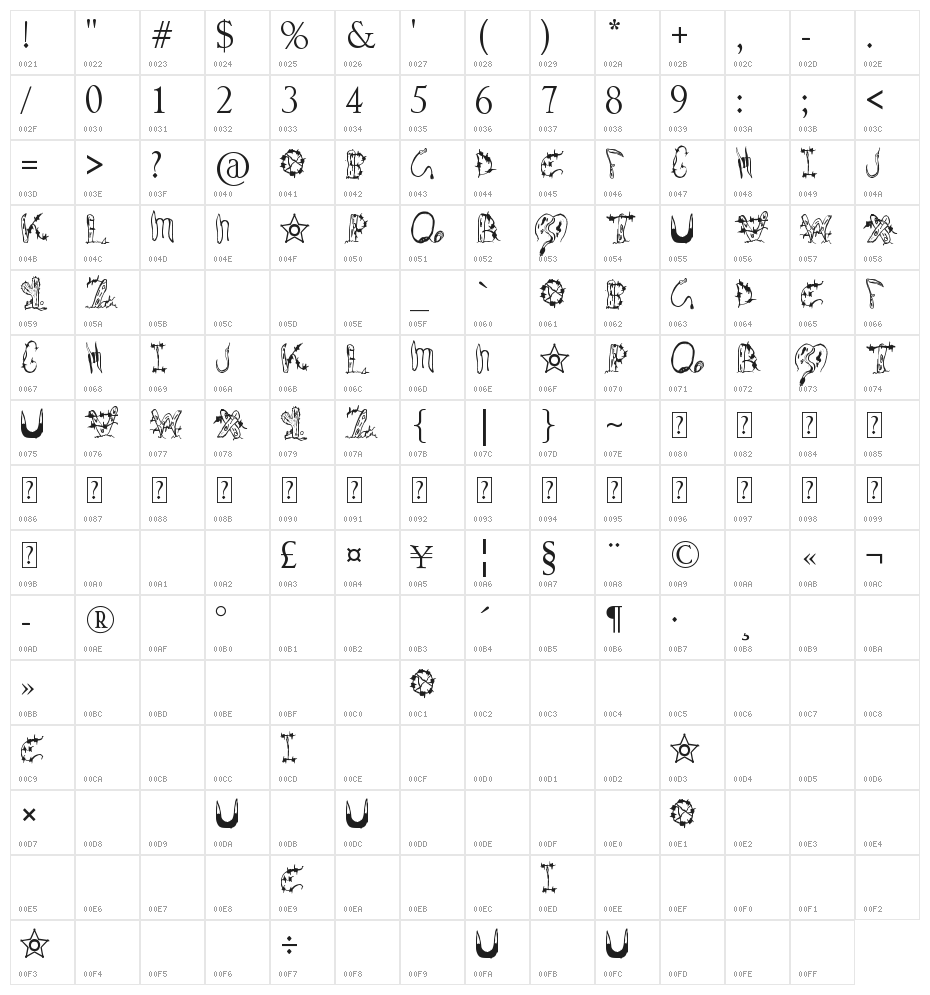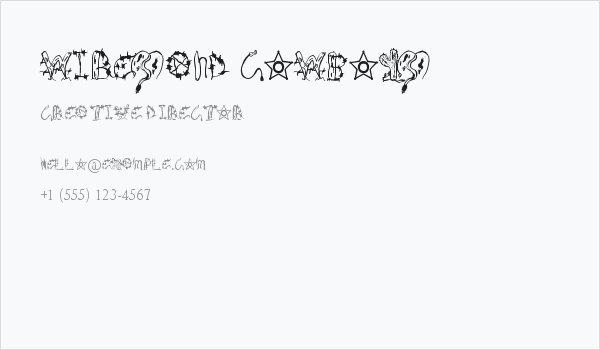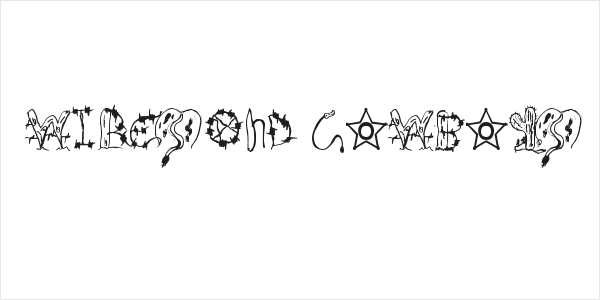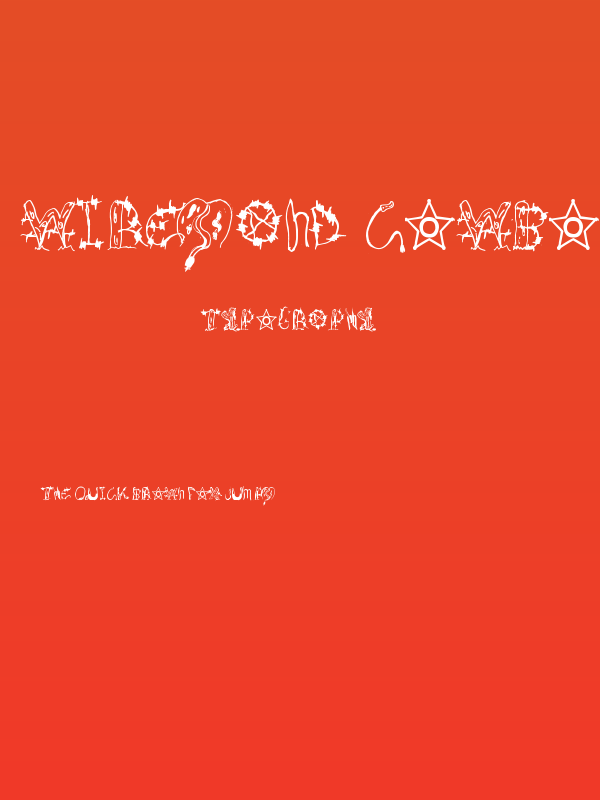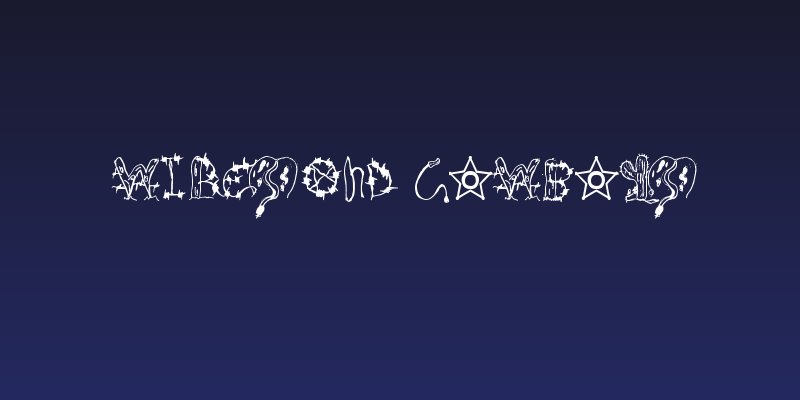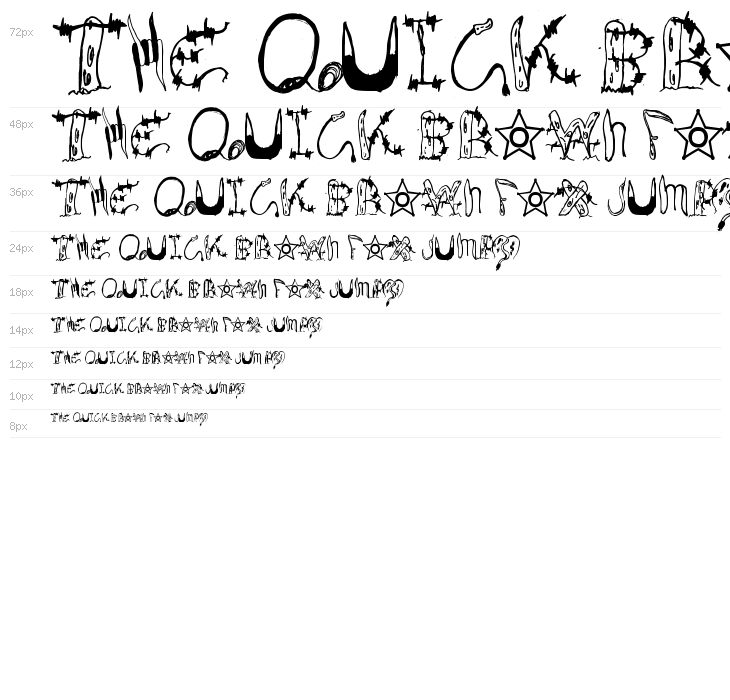
Wires and Cowboys Font
Wires and Cowboys Description
This font is a highly decorative and thematic typeface that draws inspiration from Western and cowboy motifs. Each letter is uniquely designed with elements such as barbed wire, stars, and cacti, giving it a rugged and adventurous feel. The uppercase letters are particularly detailed, with intricate designs that incorporate Western symbols. The lowercase letters maintain the theme but are slightly less ornate, providing a balance between readability and style. The numbers and special characters are more straightforward but still carry subtle Western influences. This font is perfect for projects that require a strong thematic presence and a touch of the Wild West.
| Use Case | Headlines, Logos, Themed Designs |
| Proposed Projects | Ideal for Western-themed posters, event invitations, themed restaurant menus, and novelty products. |